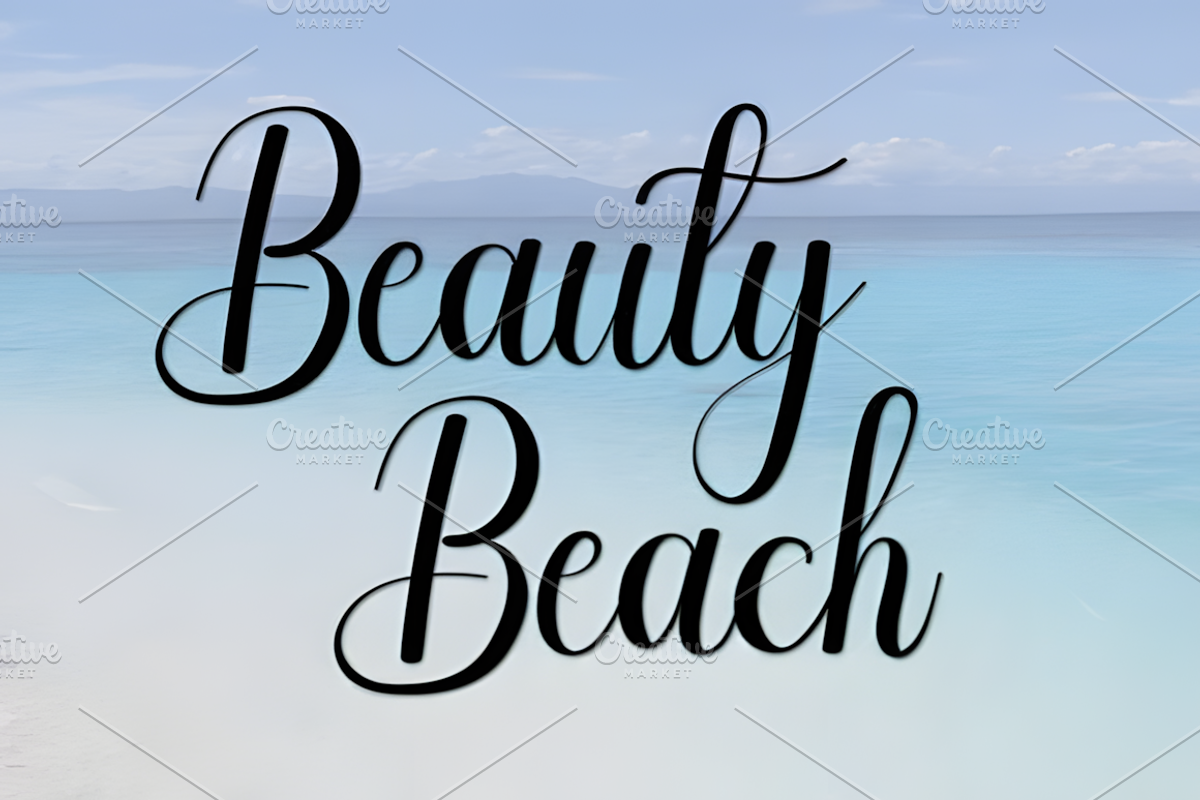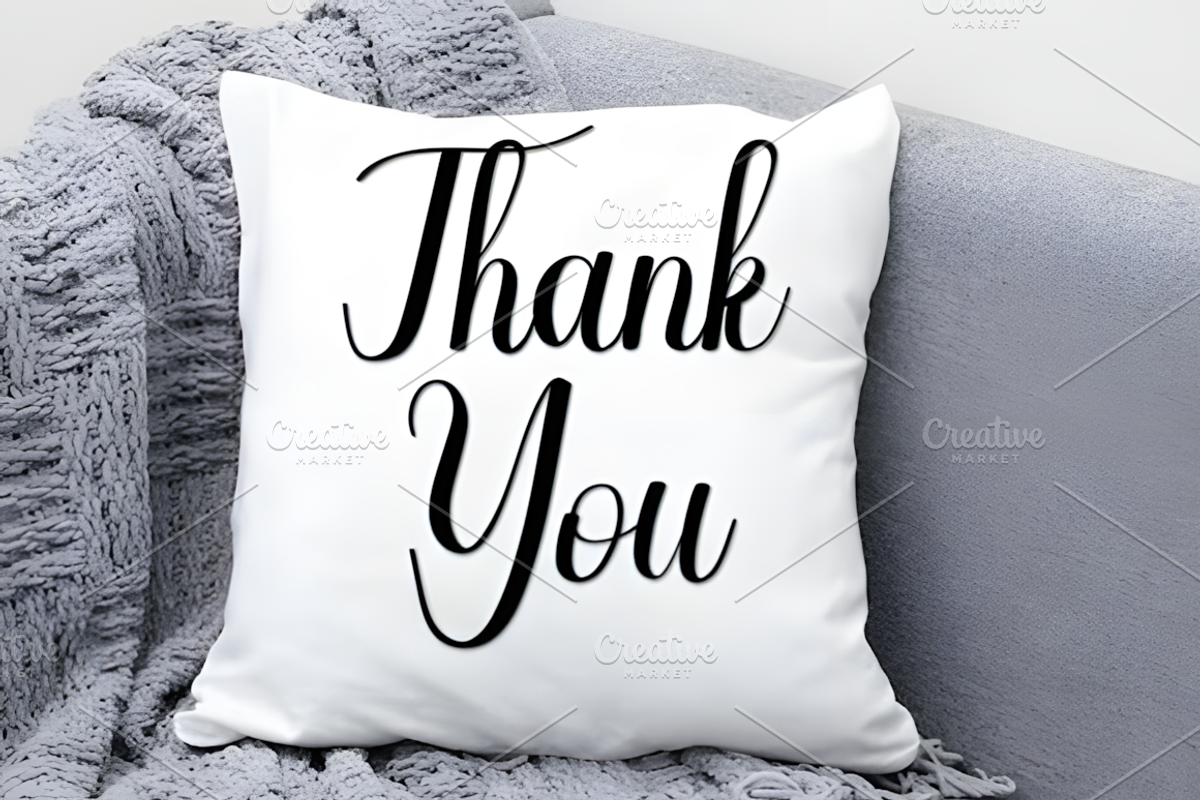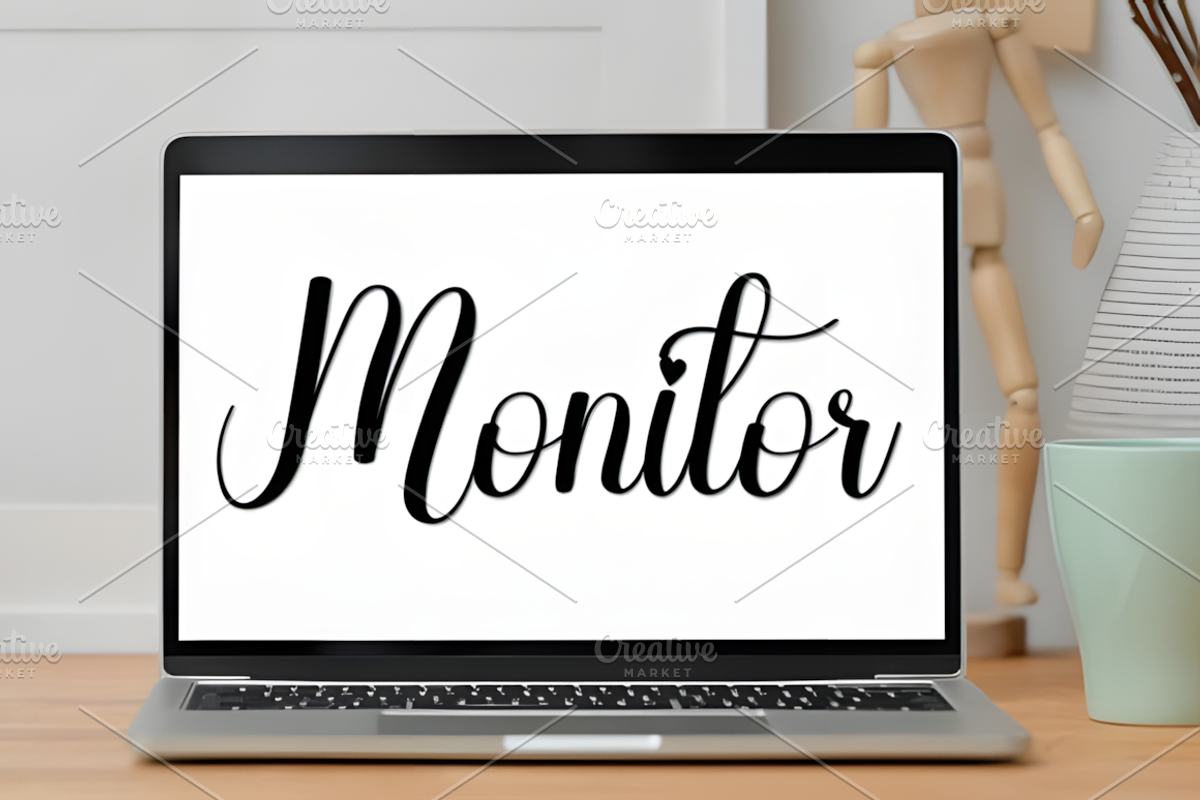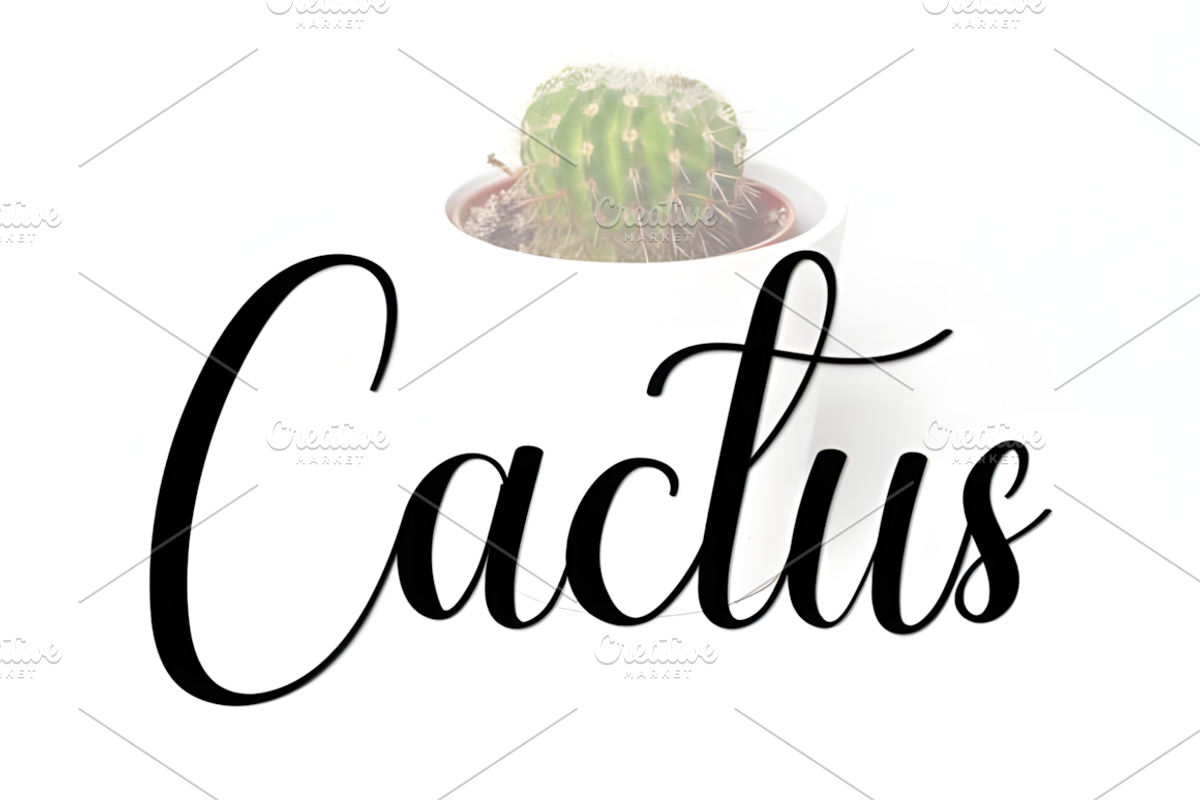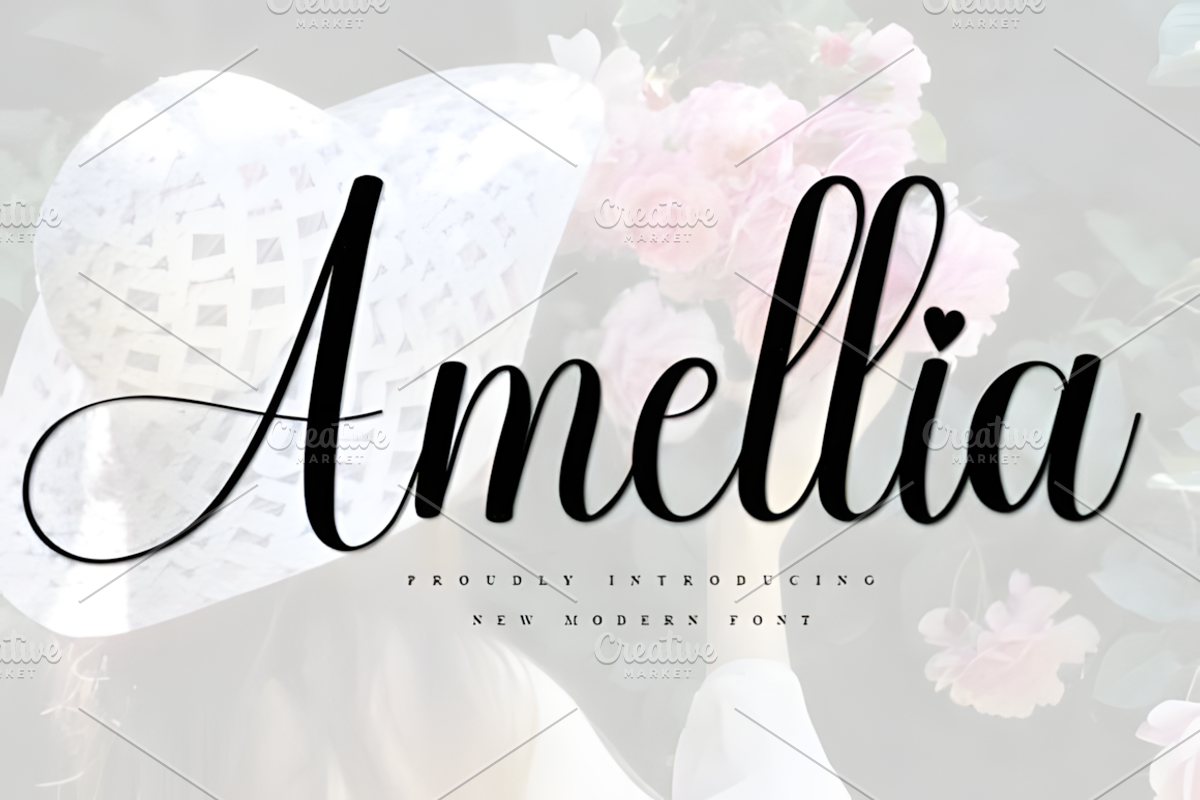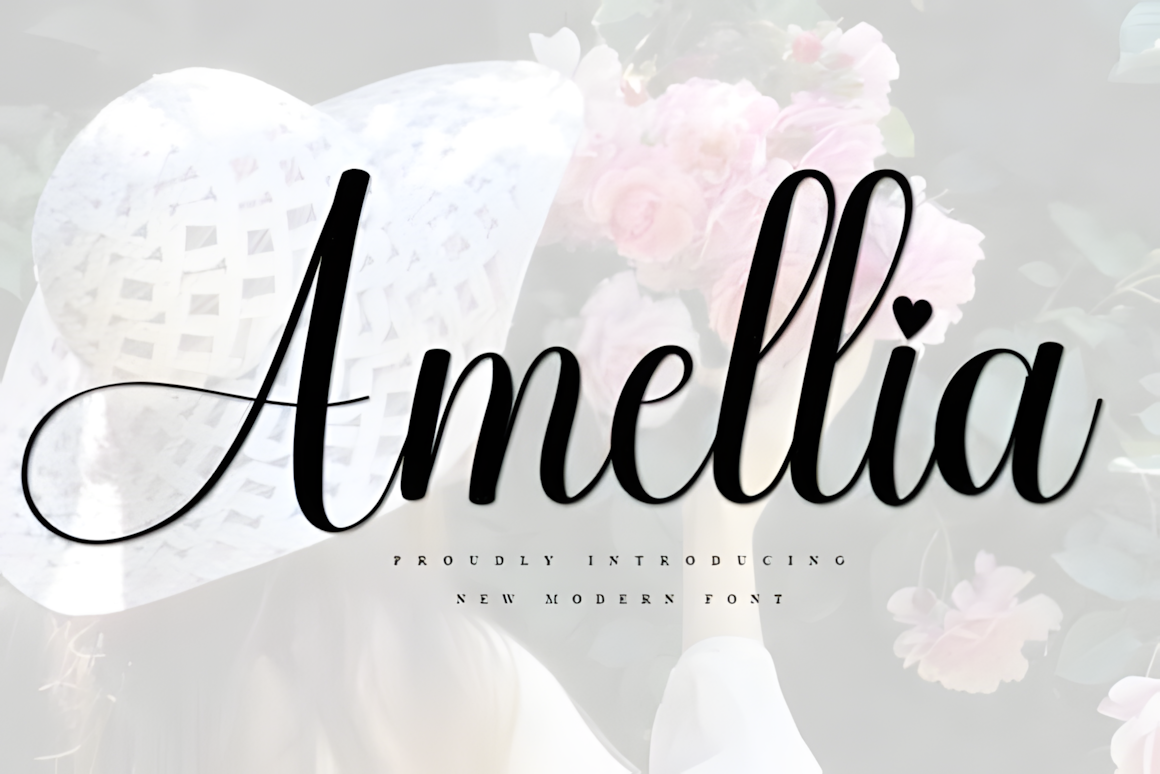
Amellia Font
Amellia is a fresh and elegant typeface designed to bring timeless beauty and sophistication to your creative projects. Its graceful letterforms make it perfect for YouTube banners, signature logos, wedding invitations, branding, business cards, flyers, ID cards, social media graphics, packaging, and handmade crafts. Whether you're building a memorable brand identity or creating stylish promotional materials, Amellia adds a refined and professional touch to every design. The font combines simplicity with unique character, offering excellent readability while maintaining an artistic appeal. Ideal for both personal and commercial use, Amellia helps your creations stand out with elegance, charm, and lasting visual impact.